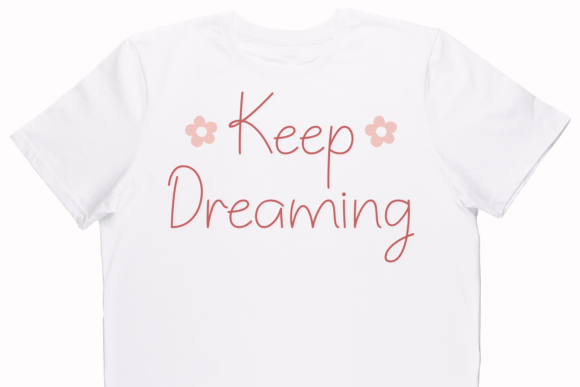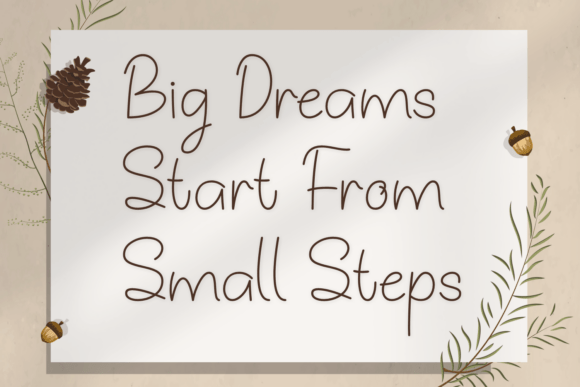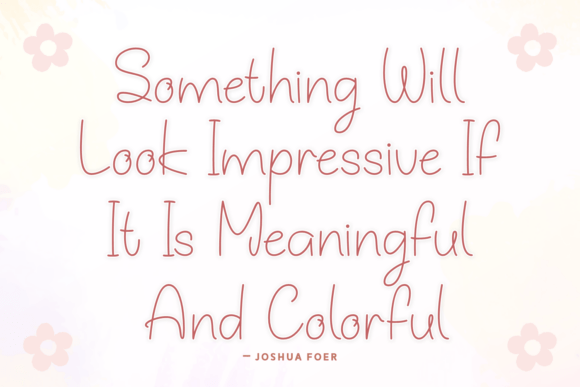
Introduction to Positive Moments Font
Remember the moment you saw your favorite quote on a beautifully designed t-shirt? It was like a ray of sunshine that brightened up your day. The simplicity of the design and the elegance of the font made it truly special. That’s exactly what the Positive Moments Font aims to bring to your creative projects – a touch of chic charm and elegance that never fails to leave a lasting impression.
As a designer, you’re always on the lookout for high-quality design resources that can elevate your work. And that’s exactly what the Positive Moments Font is – a beautiful, legible font that’s perfect for crafting memorable quotes, designing t-shirts, or penning heartfelt notes. With its transparent background and elegant design, this font is a valuable addition to any designer’s toolkit.
Key Features of Positive Moments Font
- High-quality design resource perfect for creative projects, offering a unique and modern aesthetic.
- Comes with a transparent background, providing flexibility for designers to customize their work.
- Features a clean and elegant design, ideal for use in logos, typography, and other creative applications.
Honest Review: Positive Moments Font
As a designer, I’m always on the lookout for high-quality design resources that can elevate my creative projects. Recently, I stumbled upon the Positive Moments Font, and I’m excited to share my honest review with you.
- The Positive Moments Font is incredibly versatile, with a range of styles that can be used for various design projects.
- The transparent background option is a nice touch, allowing designers to easily integrate the font into their designs.
- The font may not be suitable for projects that require a more formal or professional tone.
- The range of styles, while versatile, may not be extensive enough for designers who need a wide range of options.
Overall, the Positive Moments Font is a solid addition to any designer’s library. While it may have some limitations, its versatility and high quality make it a great choice for designers working on creative projects. With its free download option and transparent background feature, it’s an excellent value for designers looking to elevate their designs.
The Positive Moments Font is a high-quality design resource that can add a touch of elegance to your creative projects. This free download is perfect for anyone looking to elevate their designs with a unique and sophisticated font.
Tips for Getting the Most Out of Positive Moments Font
Here are some tips for getting the most out of the Positive Moments Font: use it on a transparent background to create a sense of depth, pair it with other design elements to create a visually appealing design, and experiment with different font sizes and colors to add emphasis to your text.
The Positive Moments Font is perfect for a variety of use cases, including: creating invitations, designing social media graphics, and developing marketing materials. Its high-quality design and transparent background make it a versatile font that can be used in a range of creative projects.
Does the Positive Moments Font have a transparent background?
Yes, the Positive Moments Font has a transparent background, making it easy to use in designs with complex backgrounds or images. The font’s transparent background allows it to blend seamlessly with your design, giving you more creative control and flexibility.